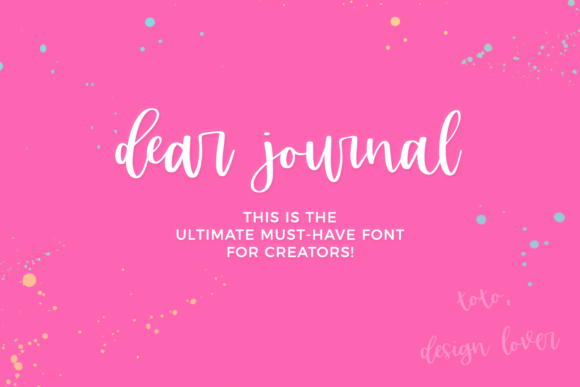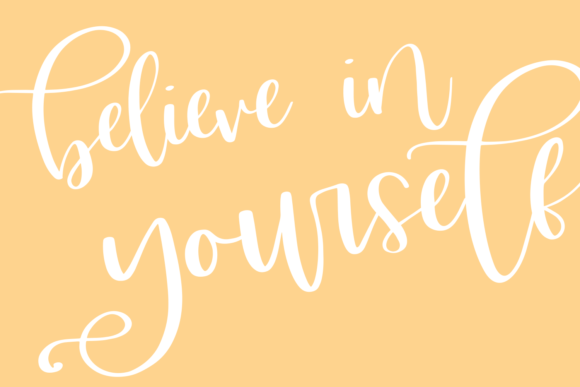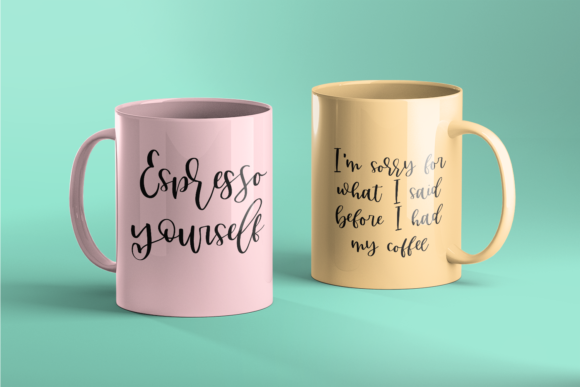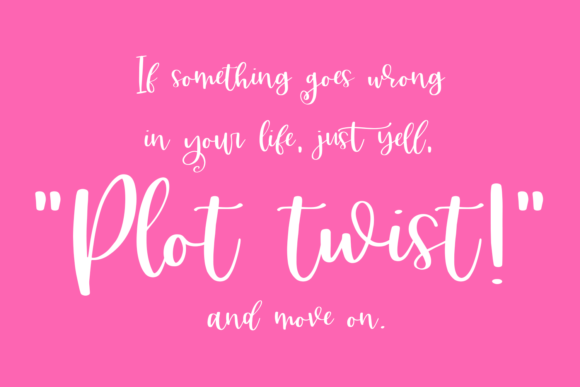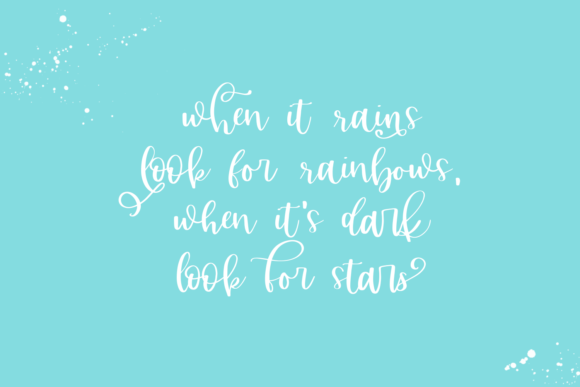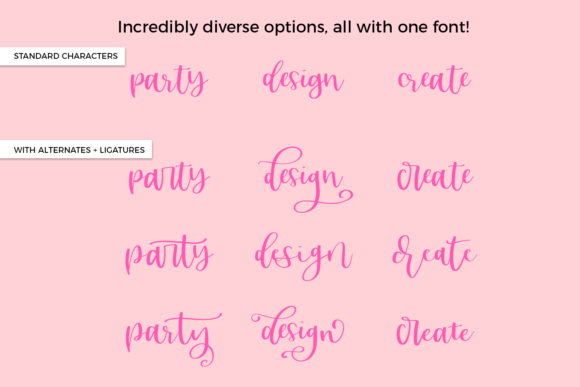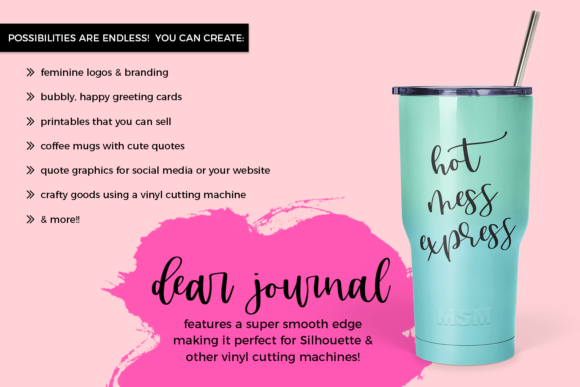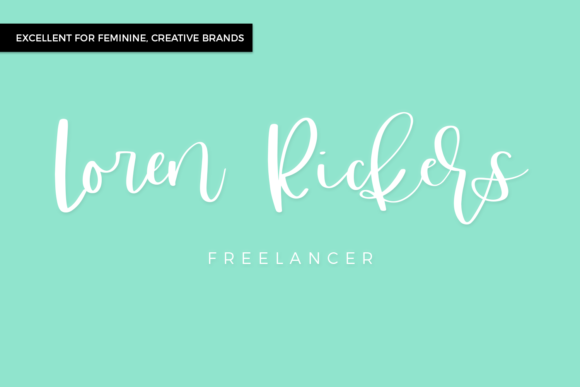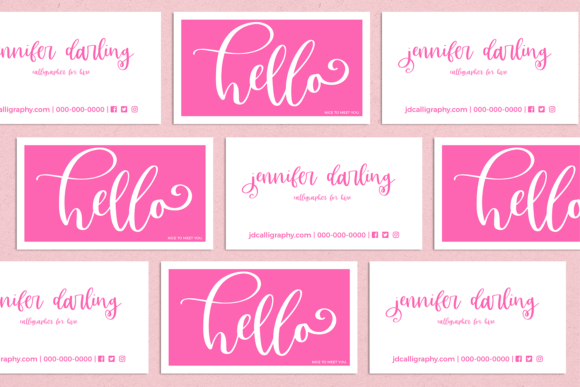
Dear Journal Font
About Dear Journal Font
Dear Journal is awesome – a font that is a total must-have for creators. This font has so many extras that it’s insane! Anyone who wants to create something that looks hand-lettered & handmade can do so effortlessly, and the combinations possible are endless.